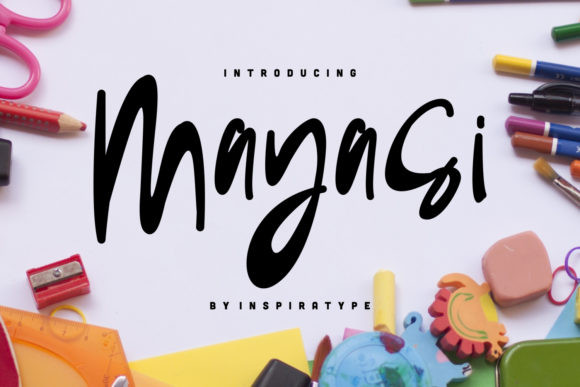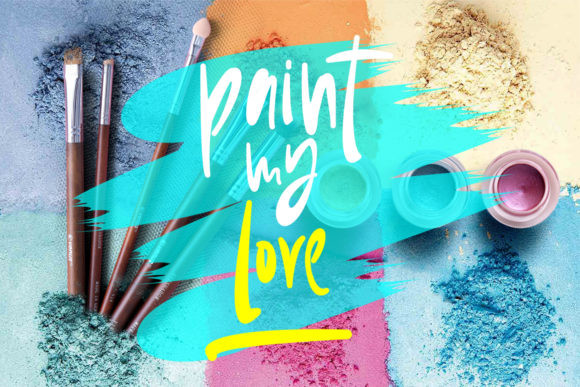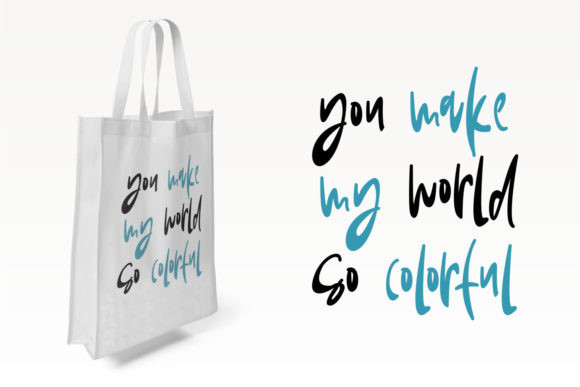
Mayasi Font
Mayasi is a cute and casual handwritten font with an incredibly friendly feel. Whether it’s for web, print, moving images or anything else this font will look spectacular.